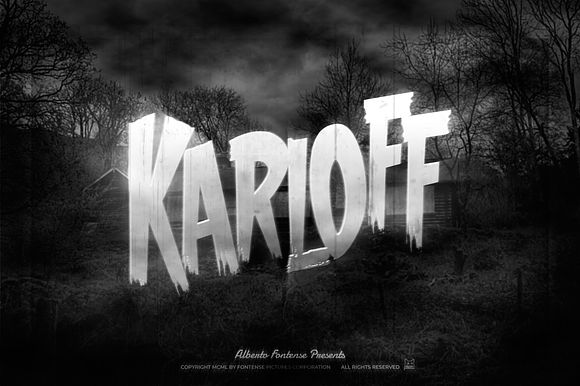
Karloff - Halloween Horror Font
ooh, spooky, exactly for halloween design, right?
Why Karloff - Halloween Horror Font is worth a look
Karloff - Halloween Horror Font by Alberto Fontense fits naturally into Branding, posters, packaging, typography.